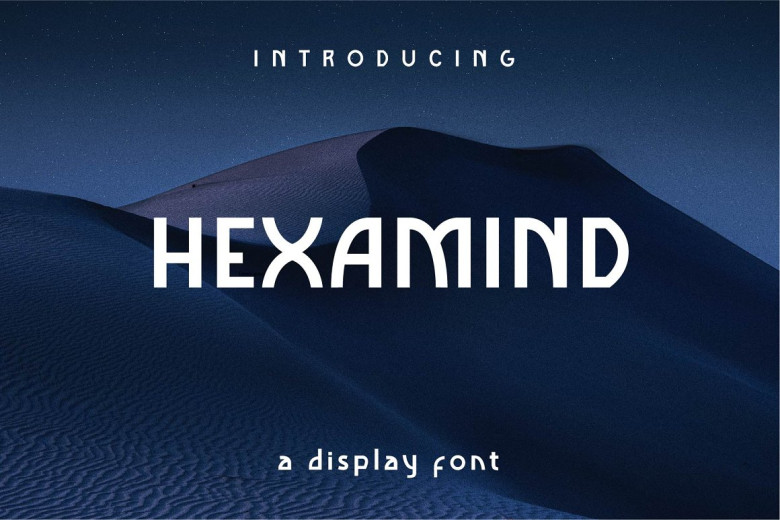
Hexamind Font
Hexamind is here – a modern, jaw-dropping display font that is ideal for any professional project! This timelessly cool font will bring any one of your creations to the next level, so whether you are developing a logo, webpage, or print materials, Hexamind is the answer to demanding attention.
Hexamind Display Font